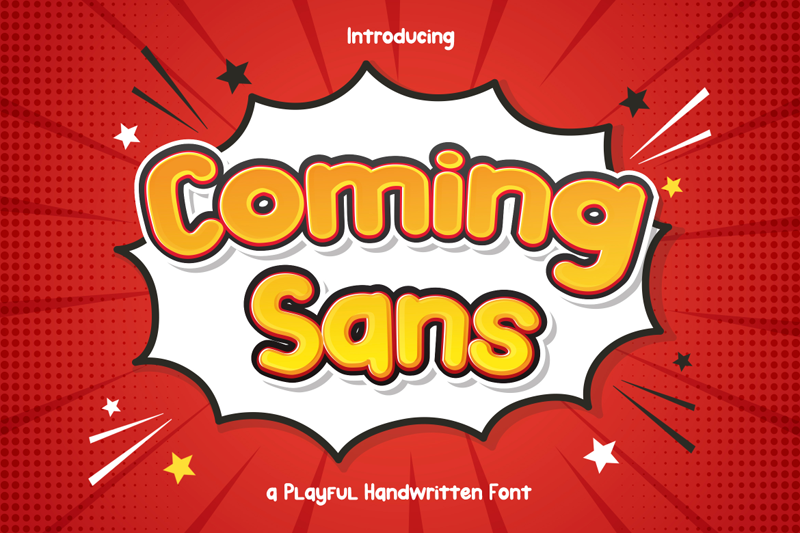
Font name: | Coming Sans |
Author: | Type Factory |
Coming Sans is playful font which puts a smile on your projects and will inspire you to create something fun and memorable like comic or children storybook. It is perfect for comic book, cartoon theme, headings, flyer, greeting cards, product packaging, book cover, printed quotes, logotype, apparel design, album covers, etc Full Version Download Here : https://typefactory.co/product/coming-sans-playful-handwritten-font/ https://www.creativefabrica.com/product/coming-sans/ref/501262/ |